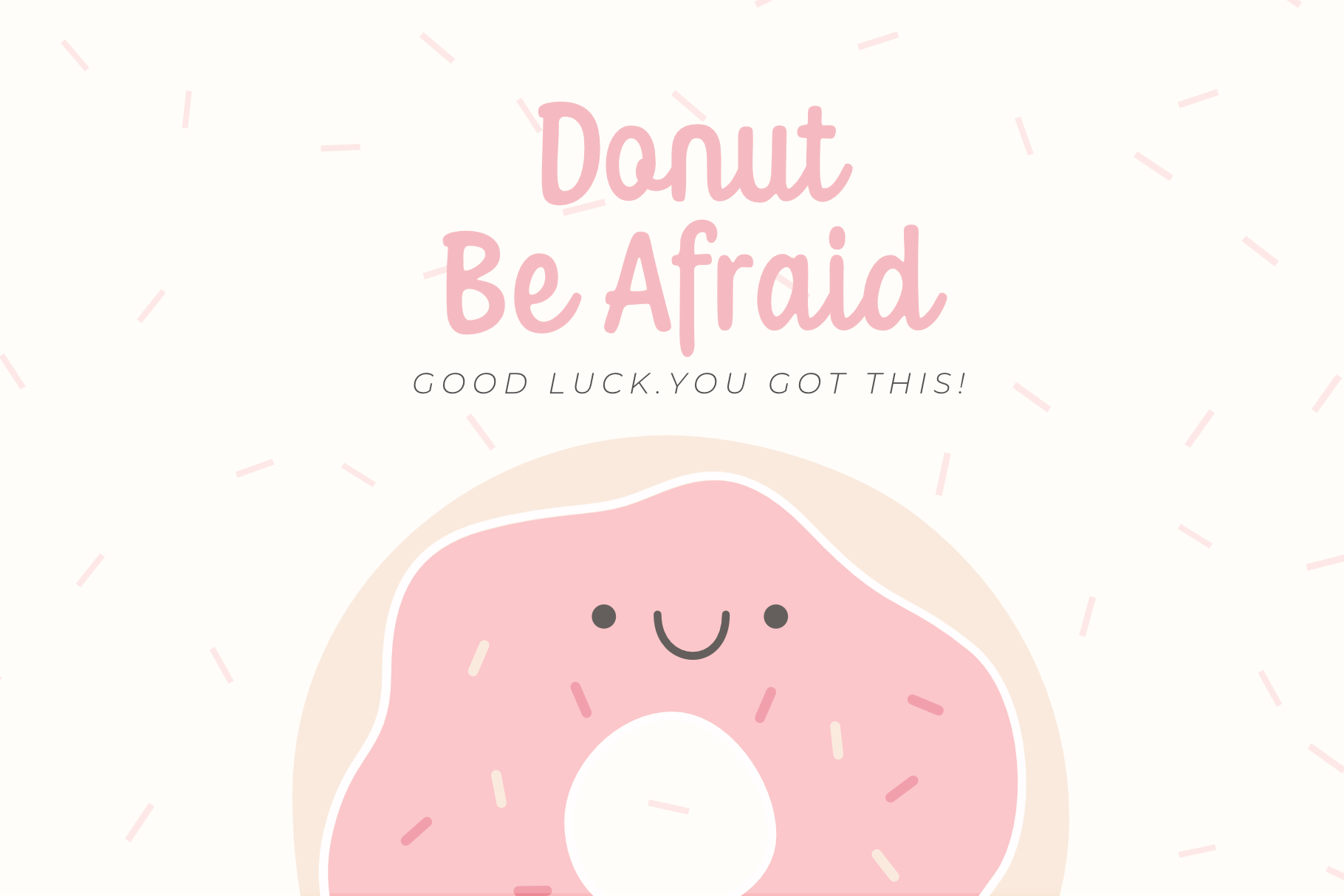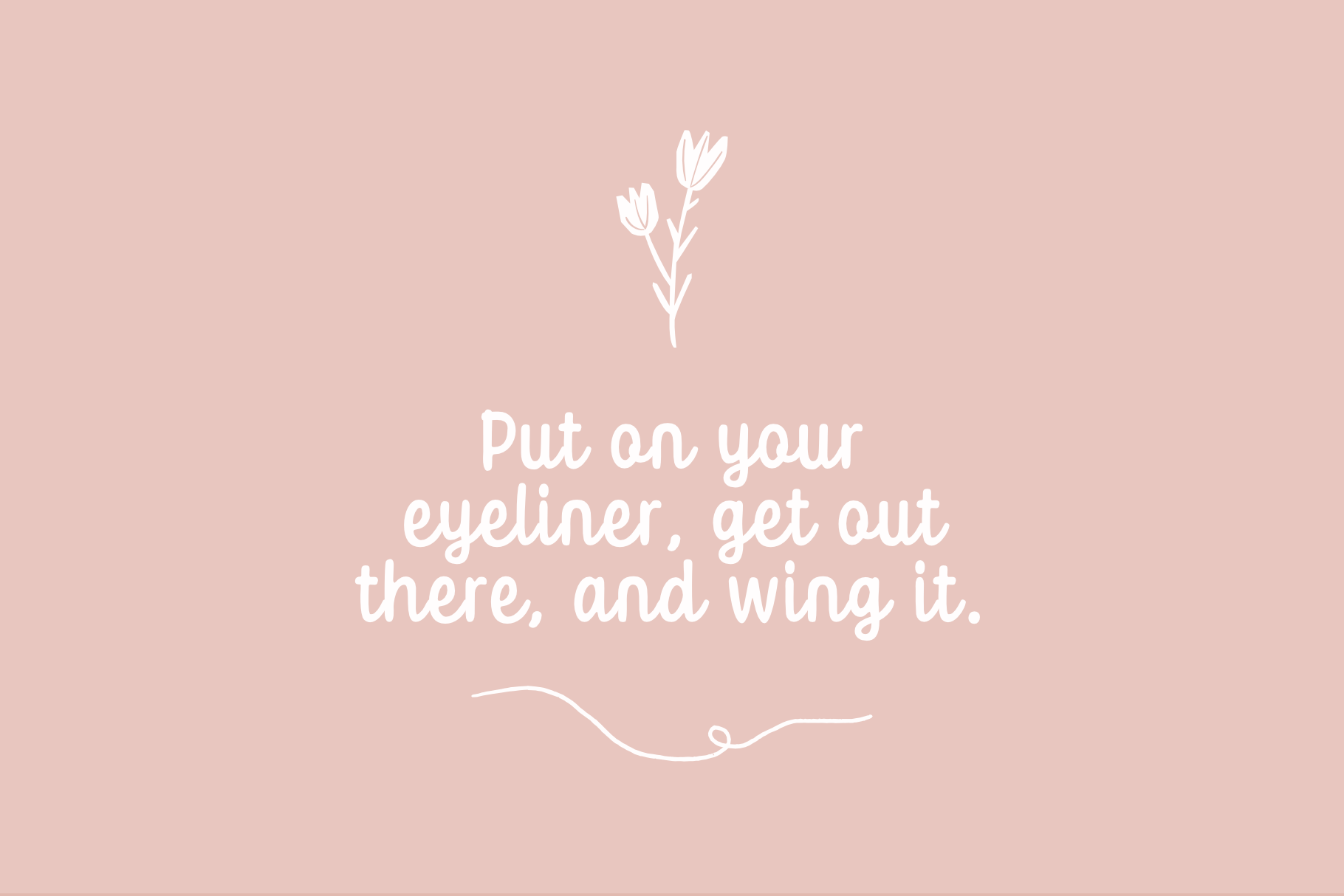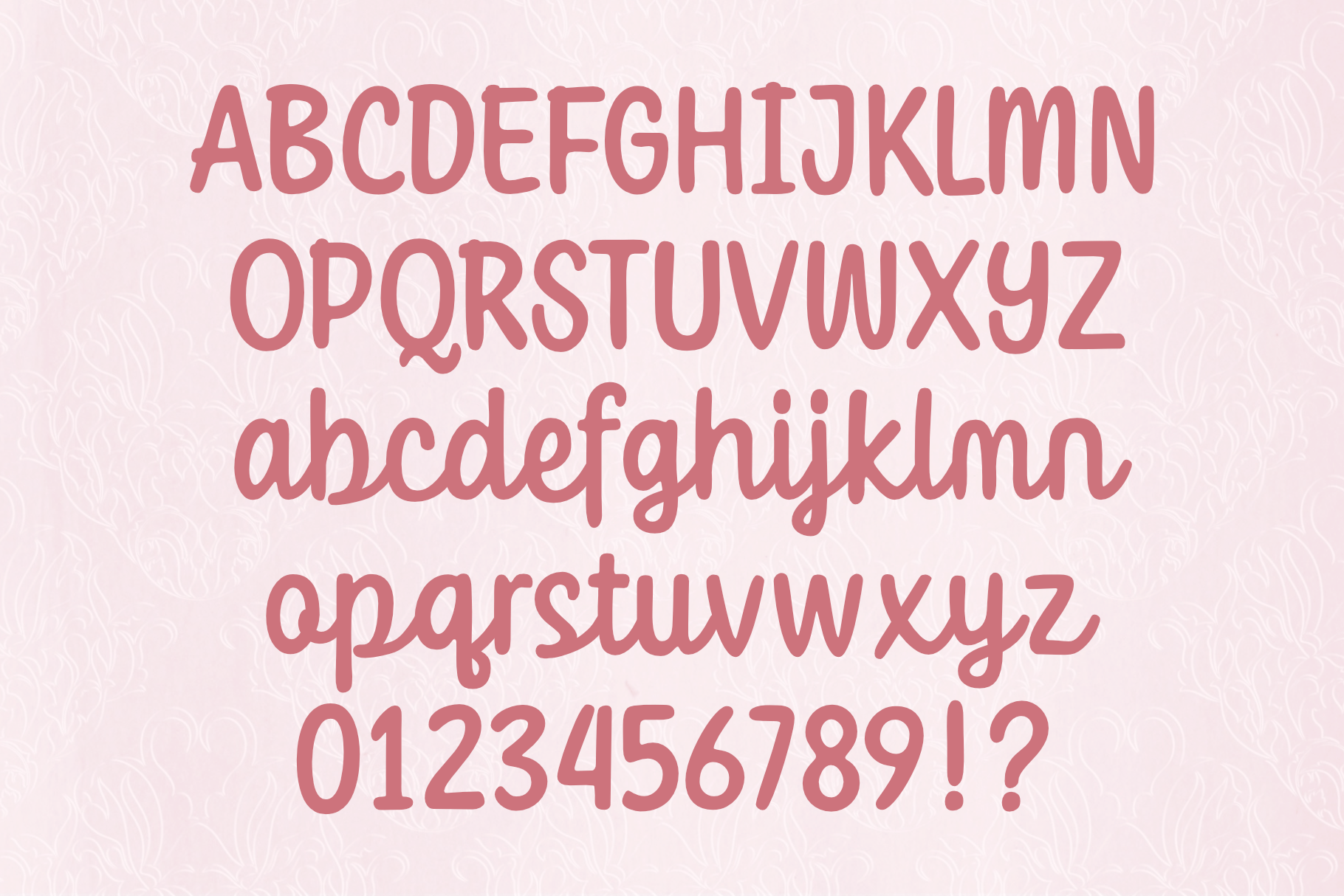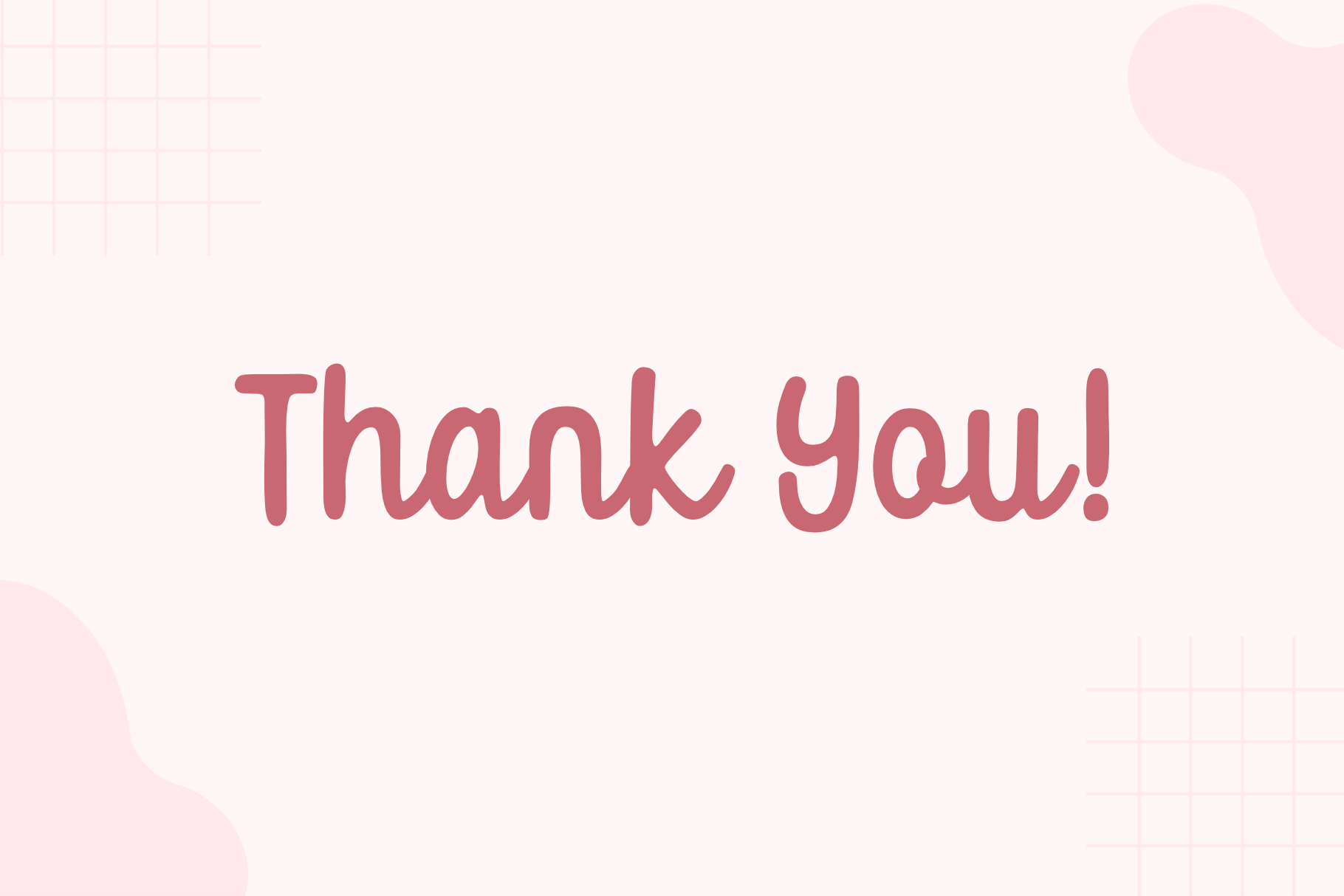
Inaptly Script Font
This is a fun and incredibly simple handwritten font. It looks stunning on wedding invitations, thank you cards, quotes, greeting cards, logos, business cards, and every other design which needs a handwritten touch.